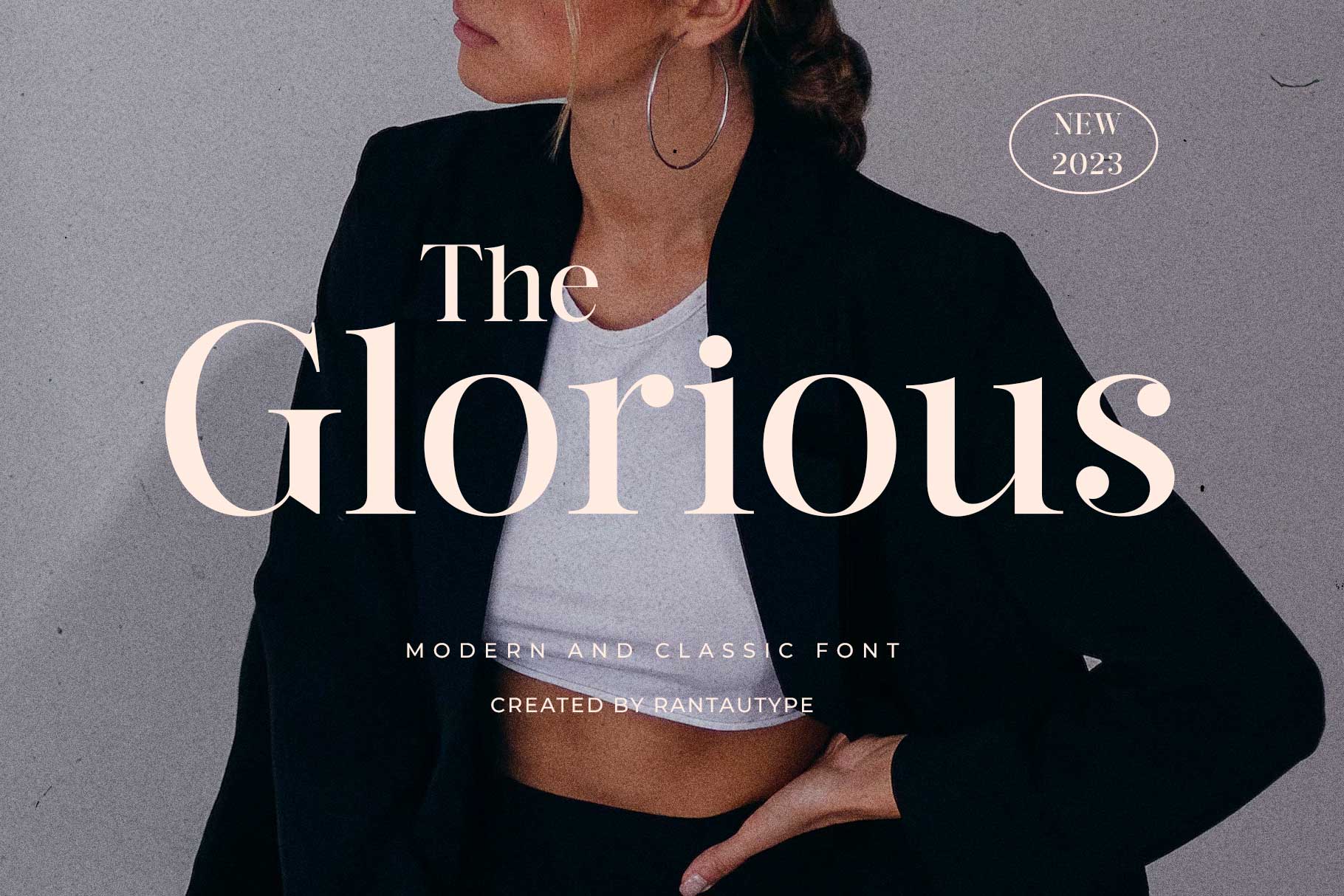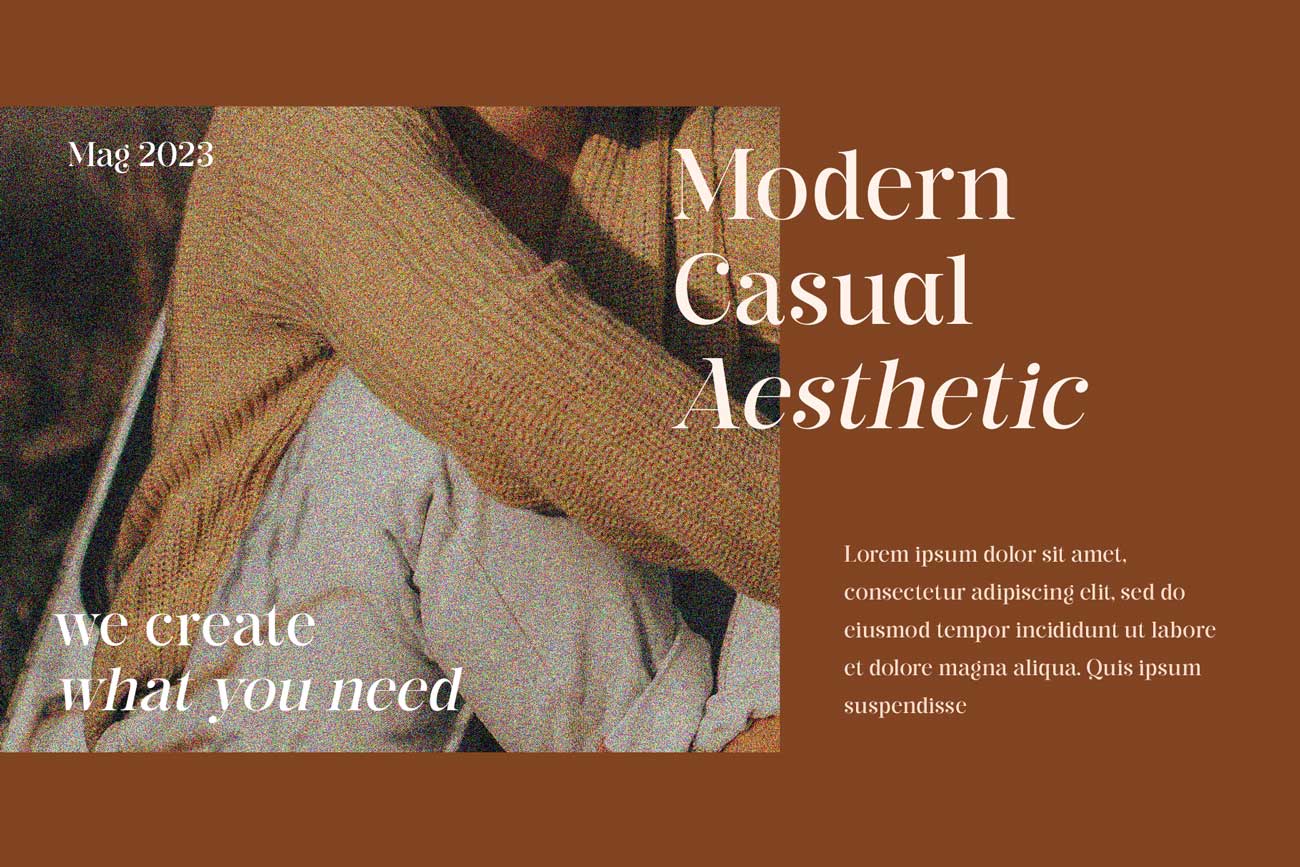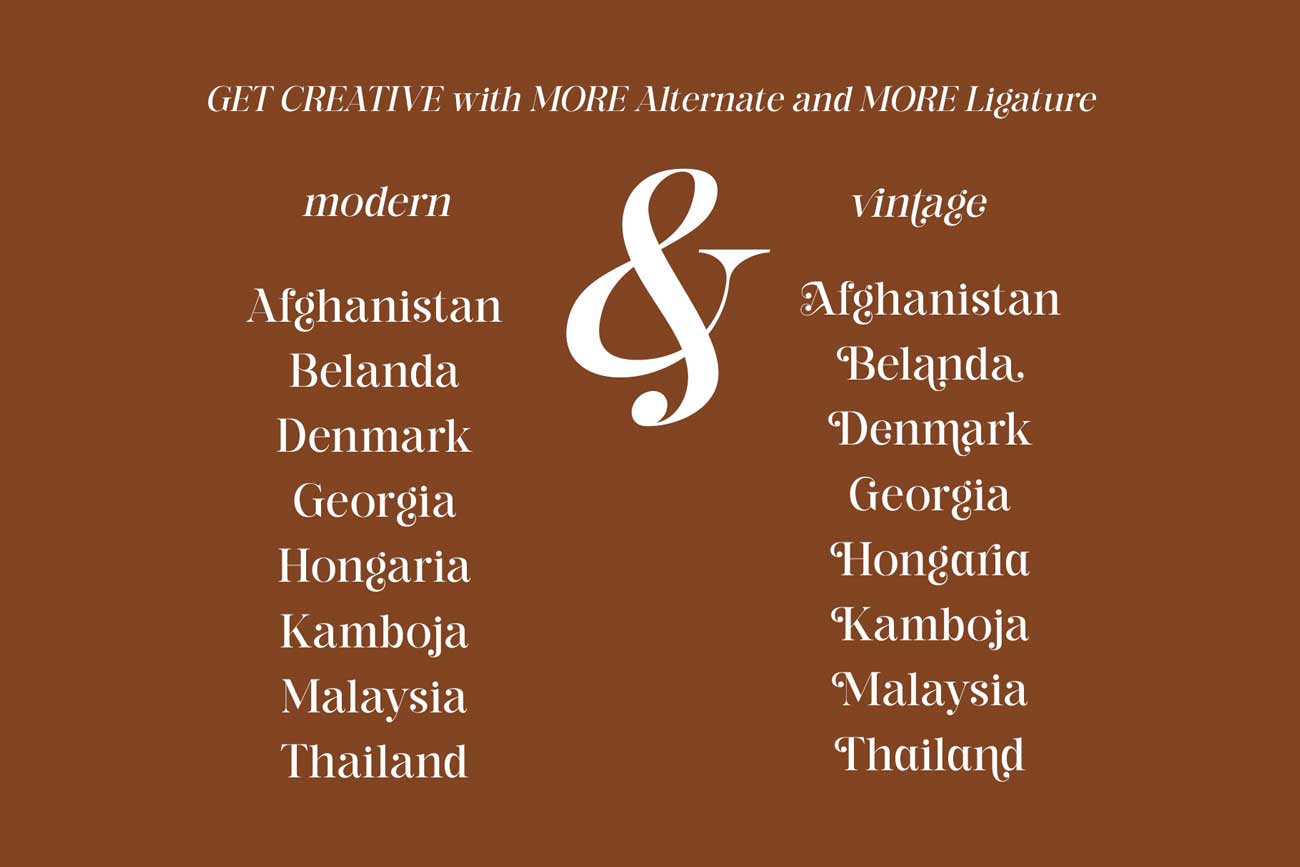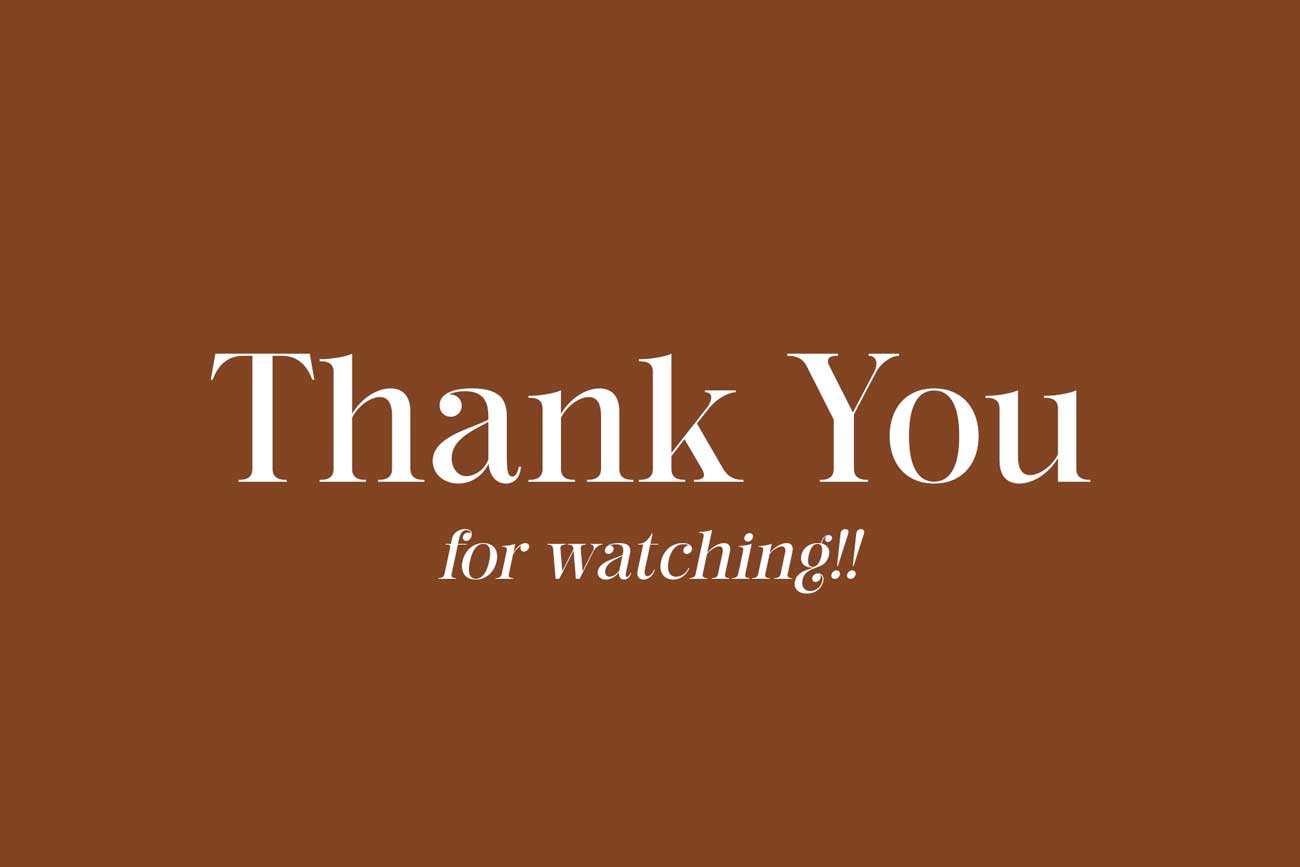
The Glorious Modern and Classic Font
The Glorious is  a beautiful upper and lower modern or nostalgic serif  – with a complementary italic version. The alternate can make to classic or stay on modern. it’s to good to make variant on your work. I’ve also love combination the reguler and italic make cool and nostalgic.
The Glorious is a perfect choice for any creative endeavor, chic, lifestyle design such as logos, advertisements, watermark on photography, stationery, branding project, display and magazine, invitation, corporate brand, product design, label, business project and many other project need elegant taste.